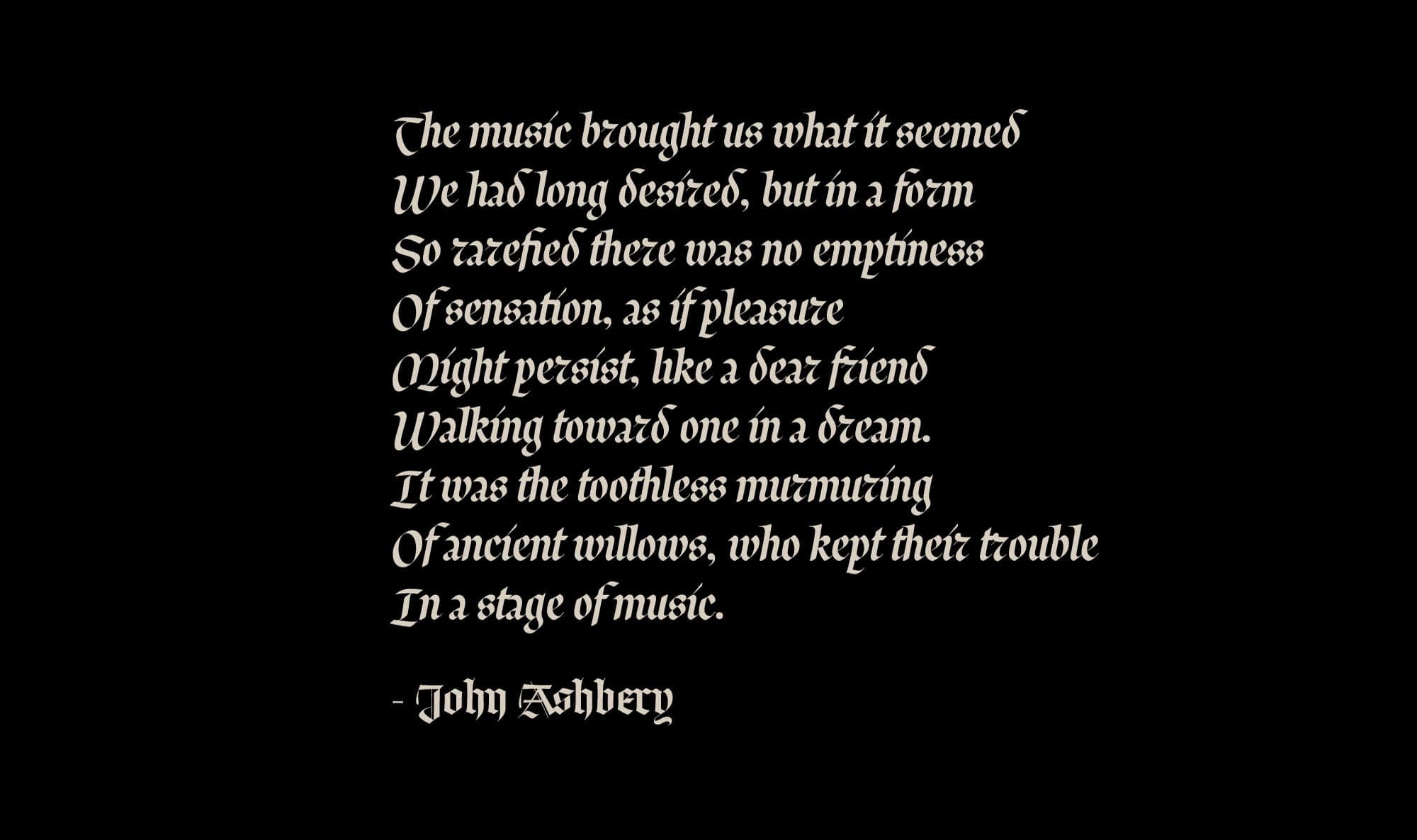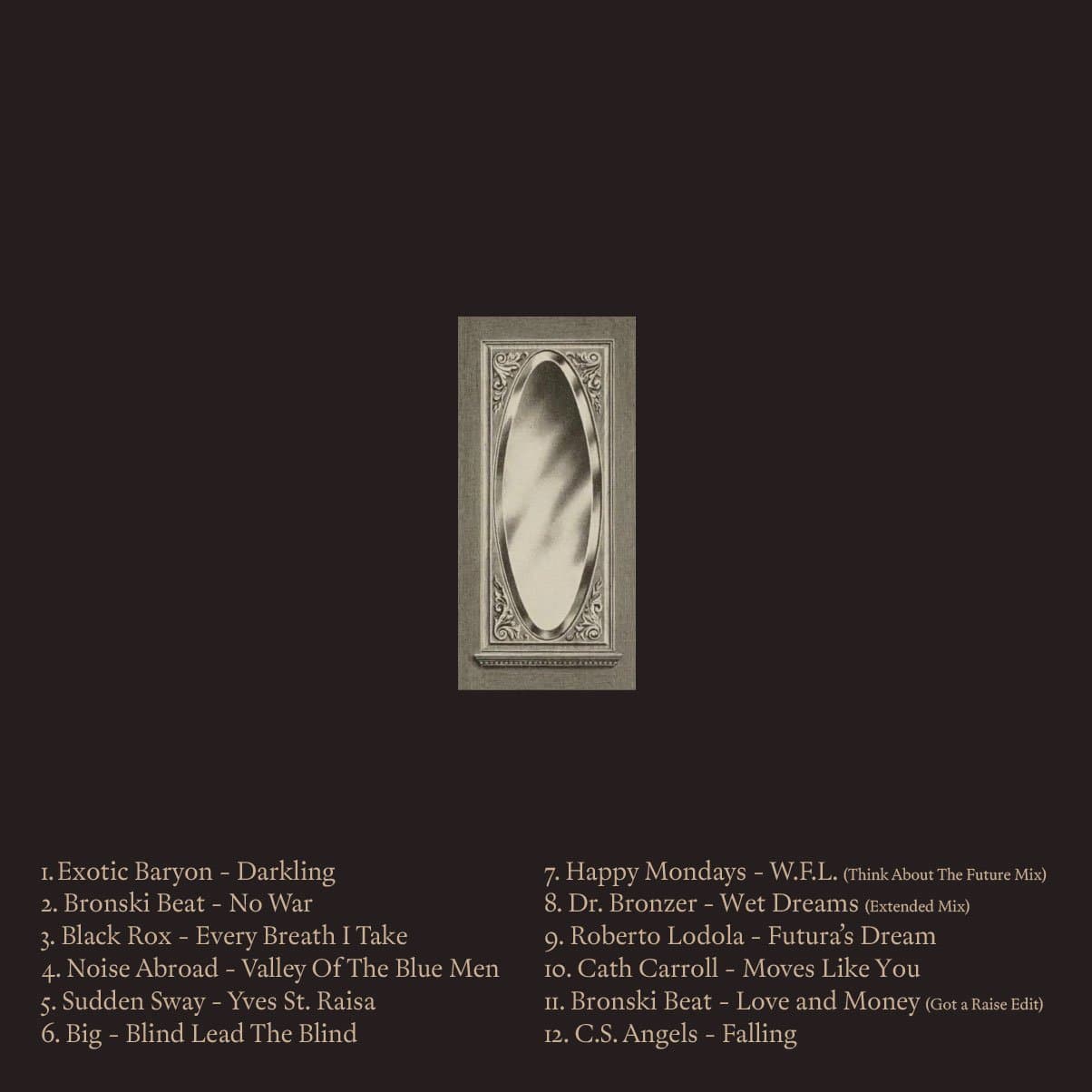
Sharp FM 015: Ivan Berko for Sharp Serif & Sharp Earth
“This mix is about the possibility of being in love while international war rages on.”
— Ivan Berko
For the cover and tracklist, Justin Sloane used Sharp Earth and Sharp Serif, two forthcoming Sharp Type releases. These mixes continue to give us opportunities to preview upcoming work, rediscover fonts in our current library, and even inspire brand new explorations. Beyond this, Sharp FM mixes offer more ambient explorations for those interested in meaningful connections between type design and music. We recently came across a feature about the great Dutch type designer Bram De Does in Eye Magazine:
"For all that De Does wondered about his originality in type design, the kaba ornament itself and its exposition in this book are an original union of typography and mathematics, which also reveals glimpses of their deeper relations to architecture and music – another of his passions. There are obvious parallels with Bach in the cascading variations, with the architectonic and decorative in the mandala-like arrangements, and with the work of Constructivist and Op artists in the elaboration of visual form through repetition and modulation."